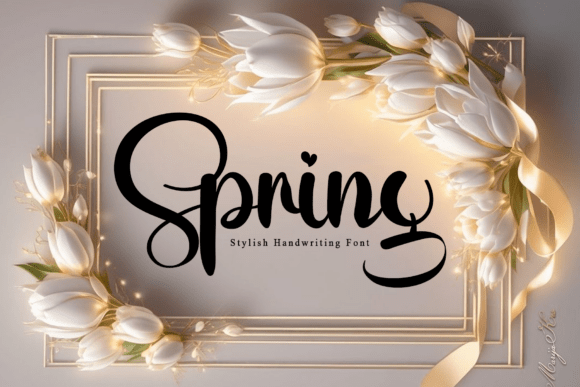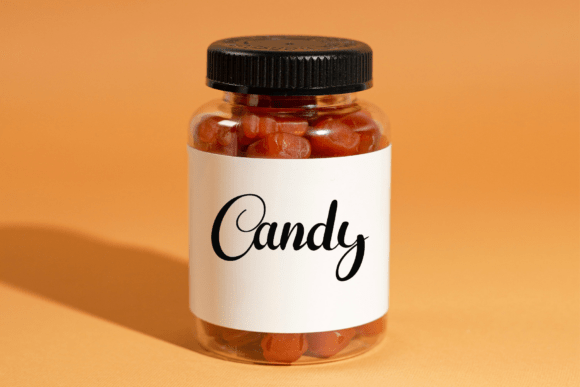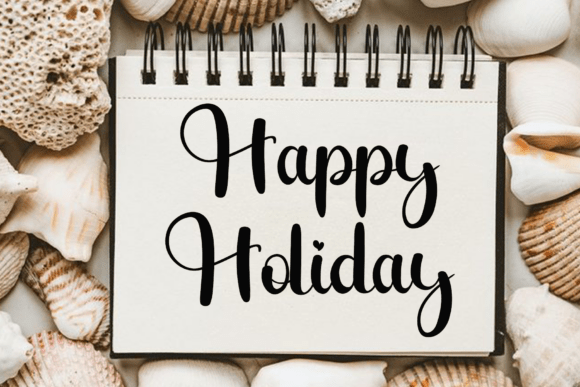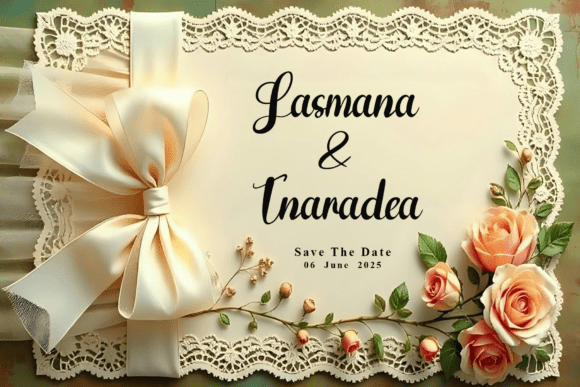
Spring Font
About the Spring Font
The Spring Font offers a perfect balance of form and function for your design needs. Spring is a whimsical and friendly handwriting font full of character and charm. With its bouncy curves, thick outline, and playful aesthetic, it’s perfect for children’s books, greeting cards, stickers, packaging, and kawaii branding. The soft, rounded feel gives it an adorable, approachable vibe that’s sure to brighten any project.
Spring Font Usage Examples